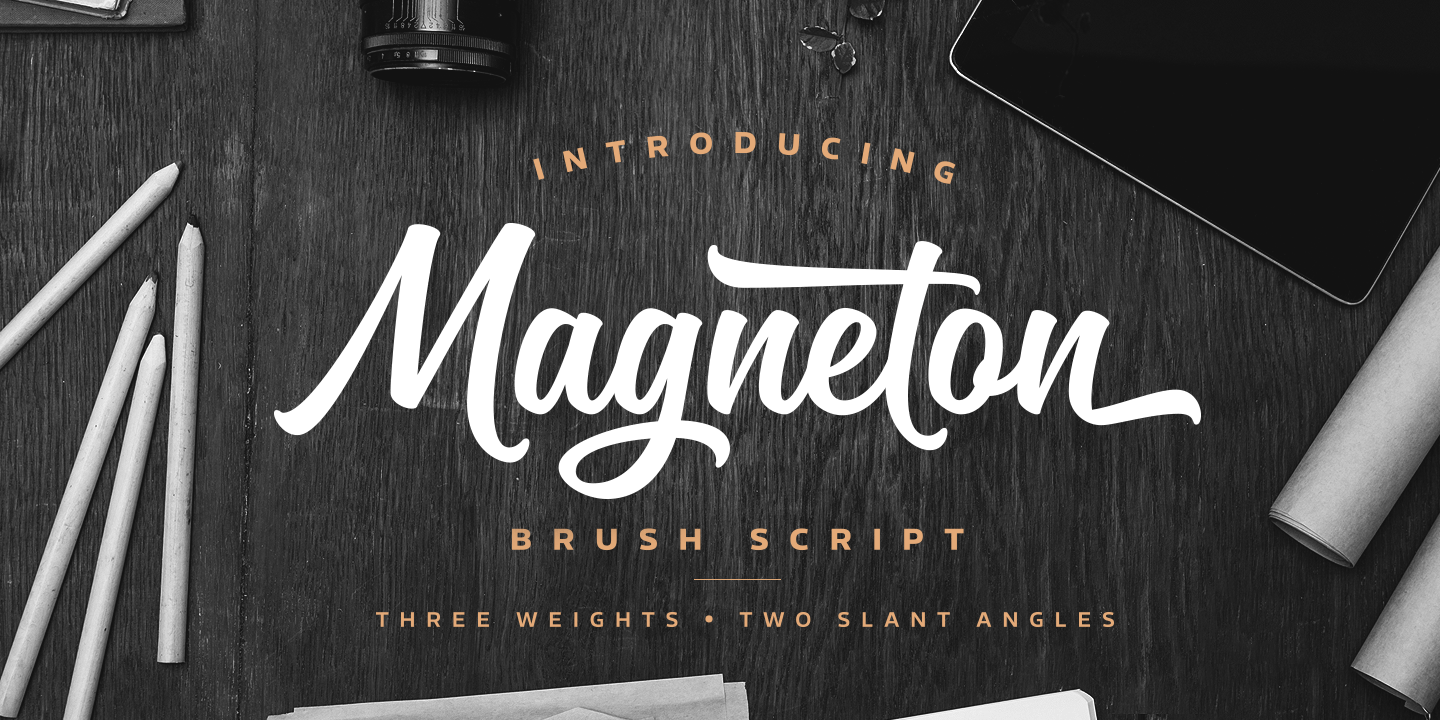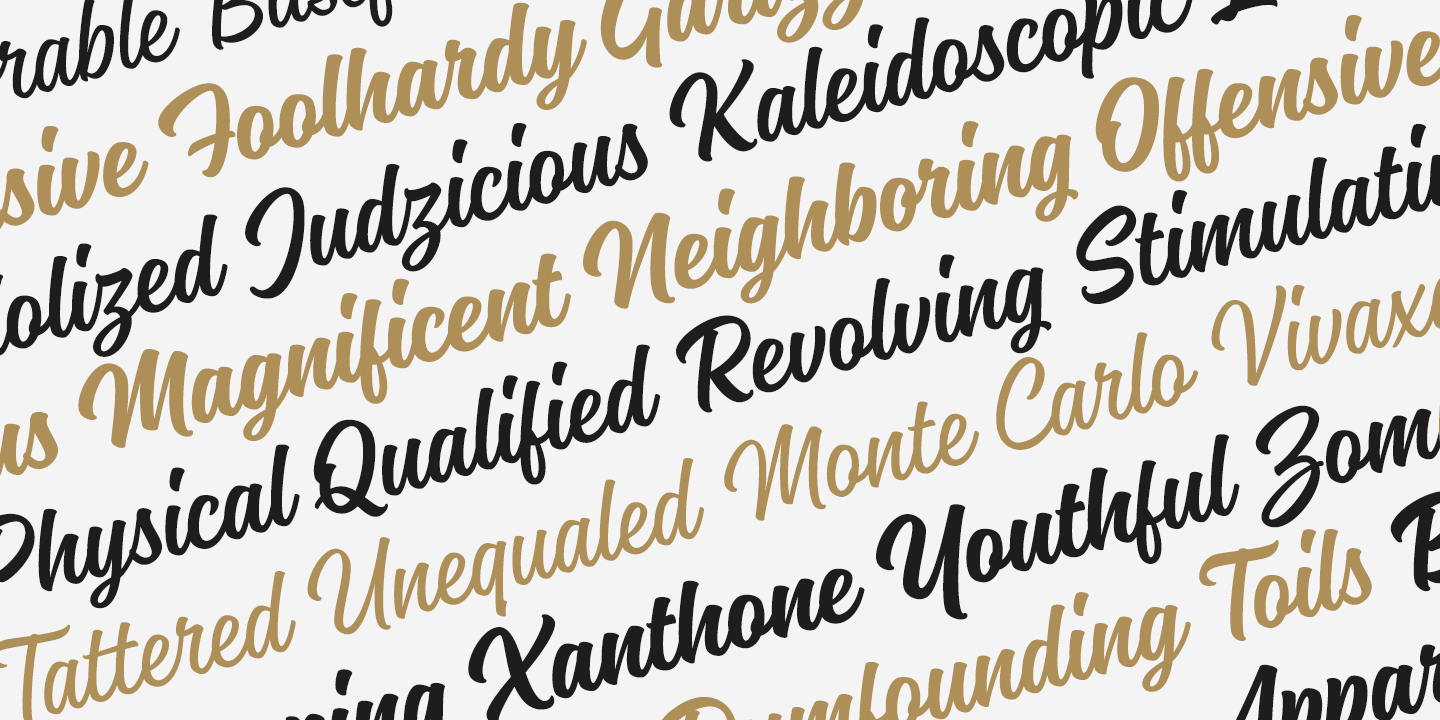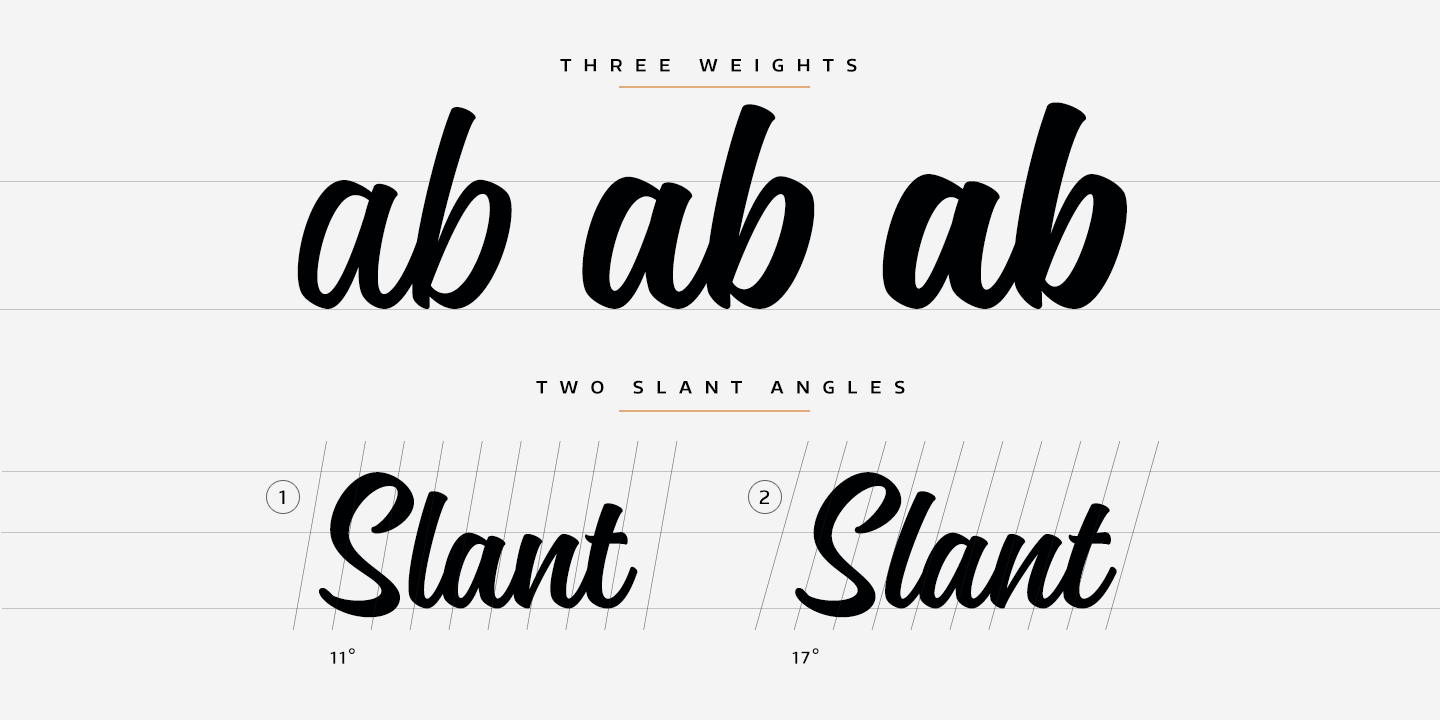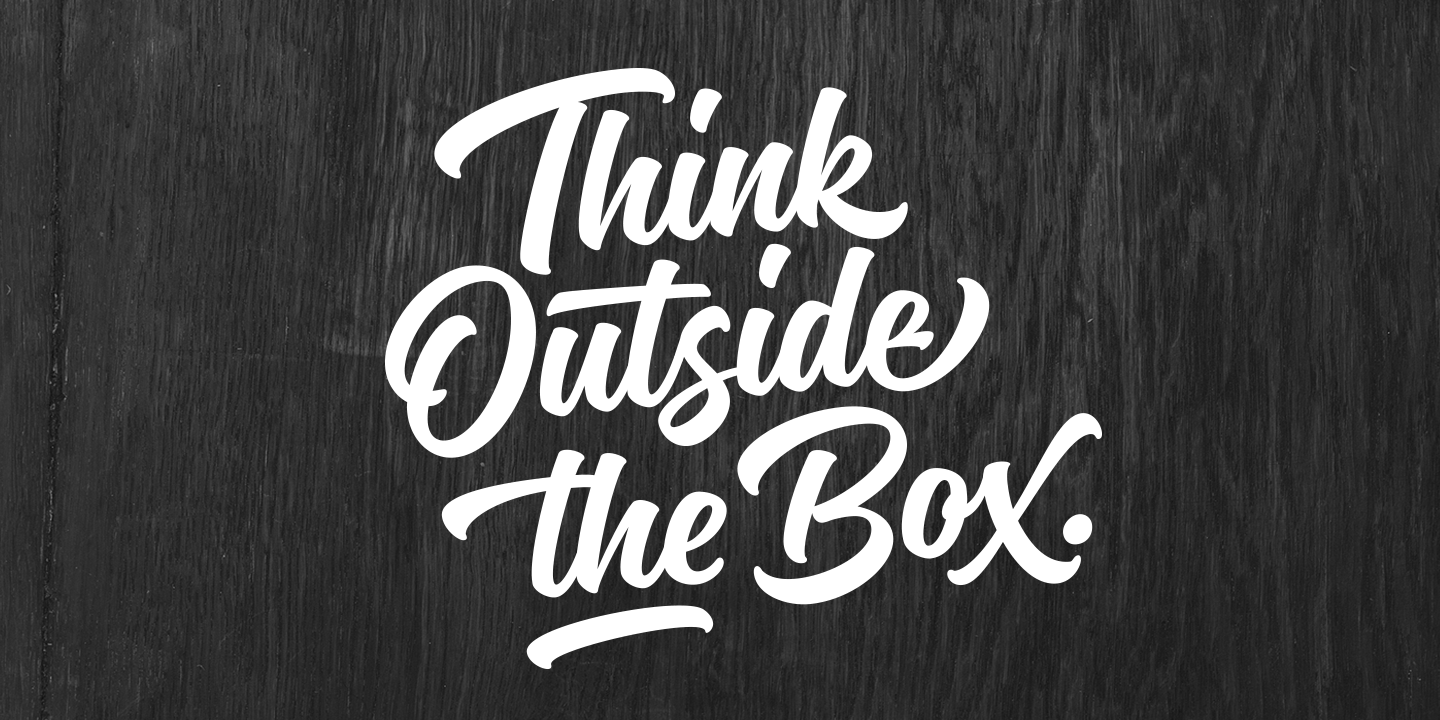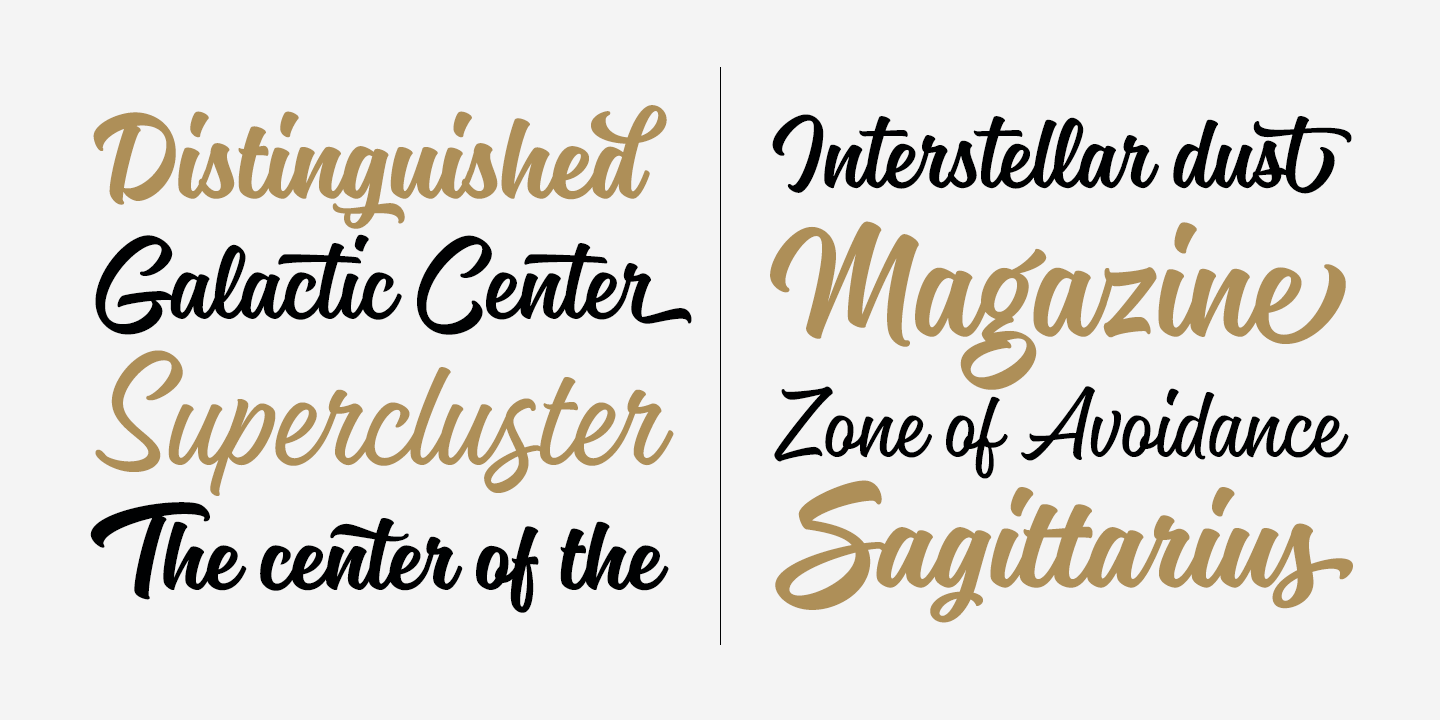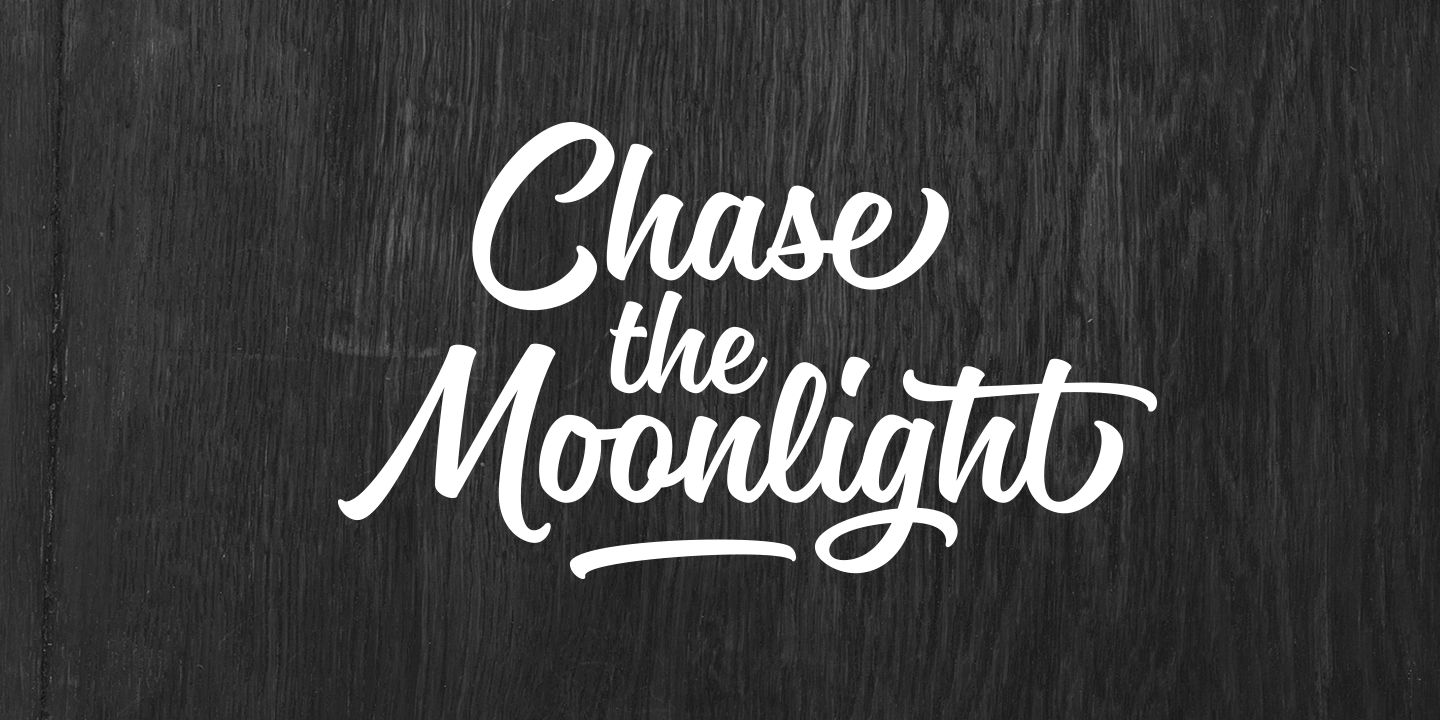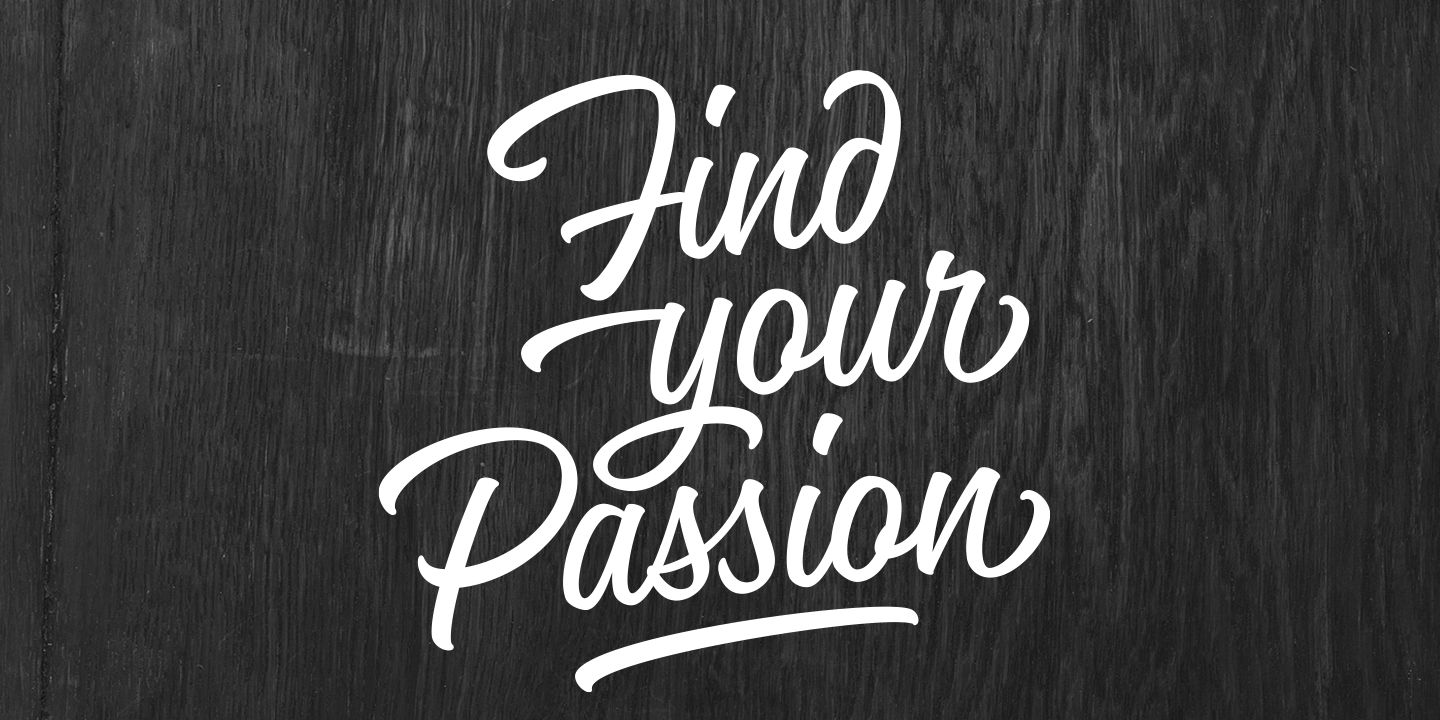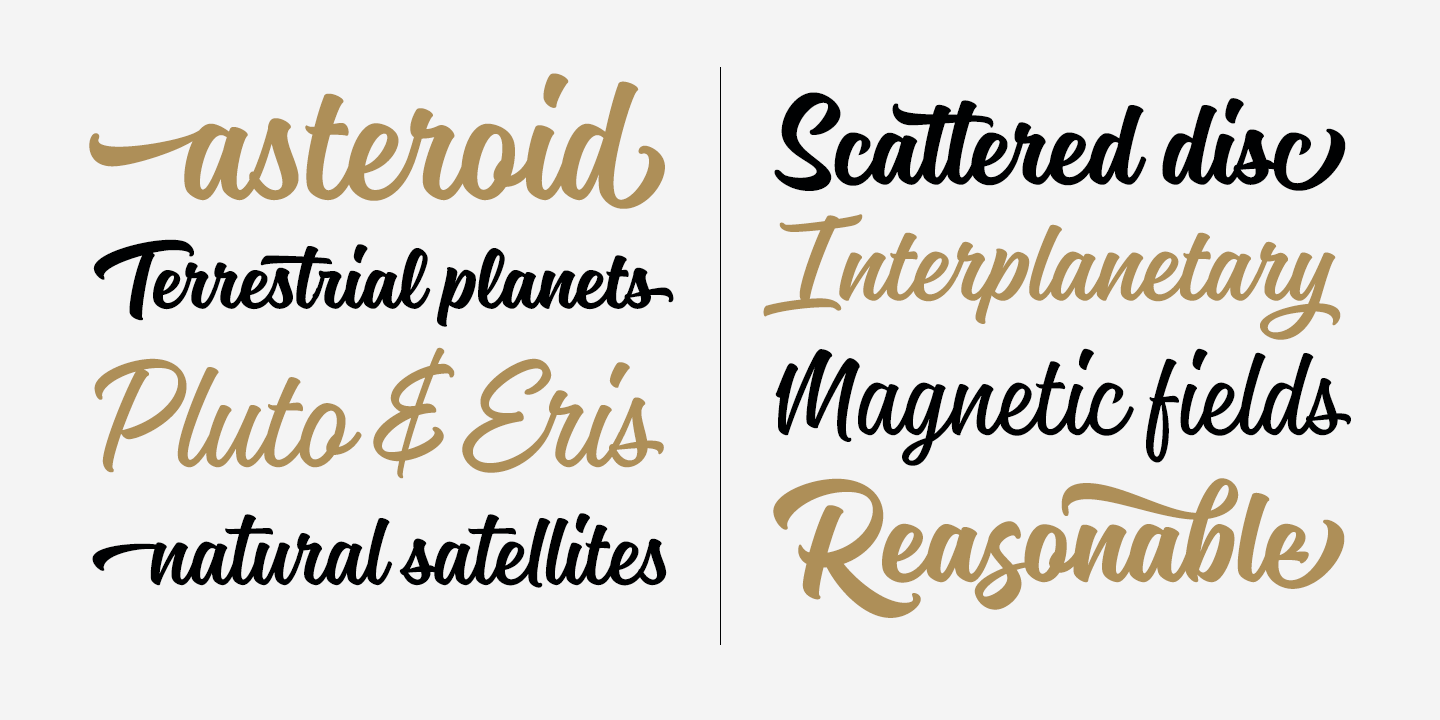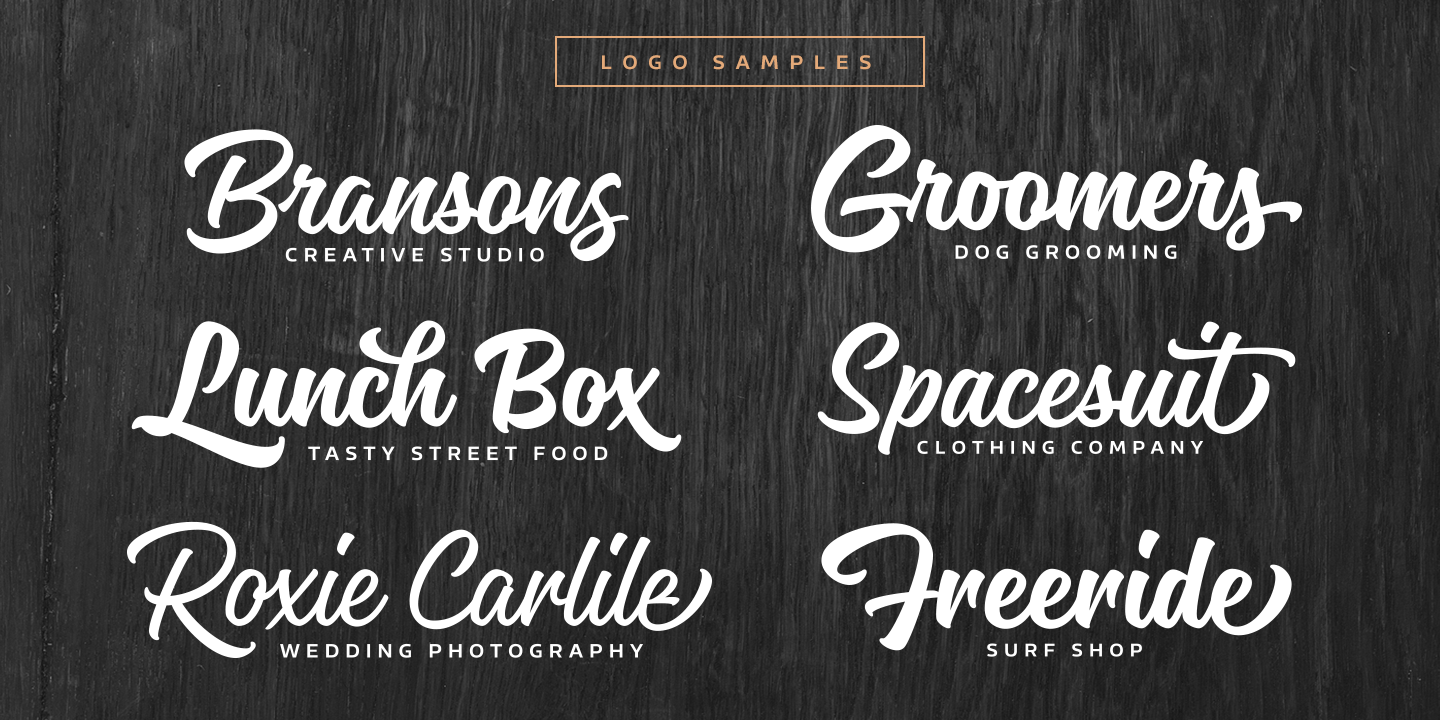
Magneton
Magneton is a brush script typeface that contains three weights and two slant angles. Three weights simulates the pressure of the brush pen; light is written with a gentle pressure and the bold one with more pressure. Two slant angles gives Magneton two natures; the more casual one and the more dynamic one. So with this script you have lots of options to choose from. You can adjust the look and feel just like when writing with a real brush pen!
Magneton has lots of alternates and swash characters. It has two sets (and more) of upper case letters. The more basic one and the more flamboyant one. It also has lots and lots of lower case alternates: two styles of end swashes, underlines, a few different ascender and descer swashes and much more. Please explore the images and glyhp set two get the idea.
I hope you like what you see and use Magneton in logos, lettering compositions, t-shirts etc. there are lots of opportunities with this one.